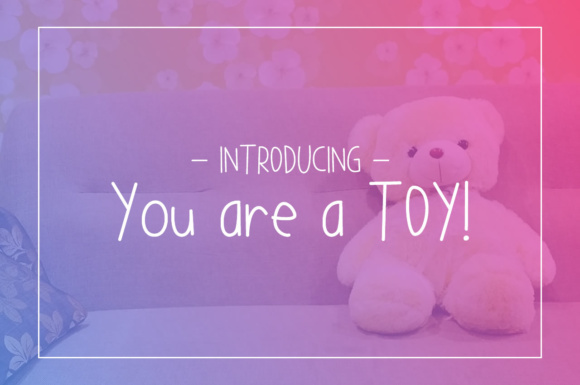
Unleash your inner child with "You Are a TOY!", a font that embodies the essence of playfulness and whimsy. Inspired by the nostalgic charm of toys, this script font will inject a touch of lightheartedness into any design. "You Are a TOY!" is perfect for adding a unique and memorable touch to children's books, greeting cards, posters, and more.
Embrace the vivacity and imagination of youth with "You Are a TOY!". This playful font evokes the magic of childhood, capturing the spirit of innocence and wonder. Let your creativity soar as you bring your designs to life with this enchanting font.
"You Are a TOY!" is not just a font; it's a gateway to a world of limitless possibilities. Express your creativity without boundaries and craft designs that spark joy and imagination. Let your words dance and twirl with the charm of "You Are a TOY!", leaving a lasting impression on your audience.
With "You Are a TOY!", you can:
* Create eye-catching headlines that demand attention.
* Add a touch of whimsy to your social media posts.
* Design invitations and greeting cards that spread happiness.
* Craft children's books that ignite a love for reading.
* Unleash your creativity in posters, flyers, and marketing materials.
Join the playful revolution and let "You Are a TOY!" transform your designs into captivating works of art. Download this font today and embark on a journey of endless creativity and joy. Remember, "You Are a TOY!" is more than just a font; it's an invitation to rediscover the magic of childhood.